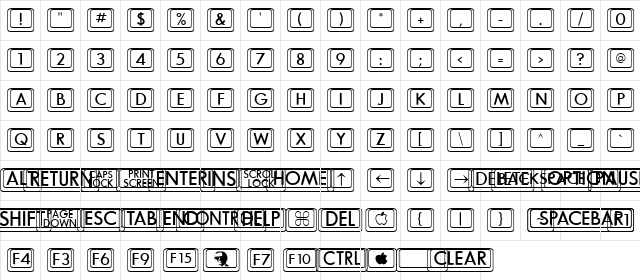
Davys Big Key Caps Medium
Design Context for Davys Big Key Caps Typeface
Davys Big Key Caps offers clean, dependable letterforms without strong stylistic allegiance, making it a practical choice for designers who need flexibility.